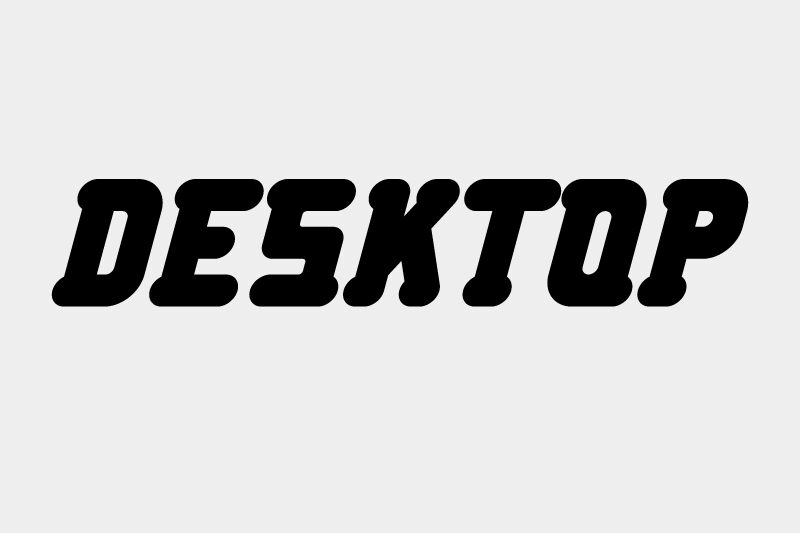
Desktop Italic
Desktop Italic, designed by Design Vector10, is a captivating display font that exudes confidence and sophistication. With its extra-bold weight and condensed width, this font adds a touch of elegance to any project it graces.
Its slanted and italicized letters offer a unique visual appeal, making it ideal for eye-catching headlines, logos, and posters. Whether you're designing a high-end fashion magazine or creating an impactful advertising campaign, Desktop Italic will effortlessly elevate your work to new heights.